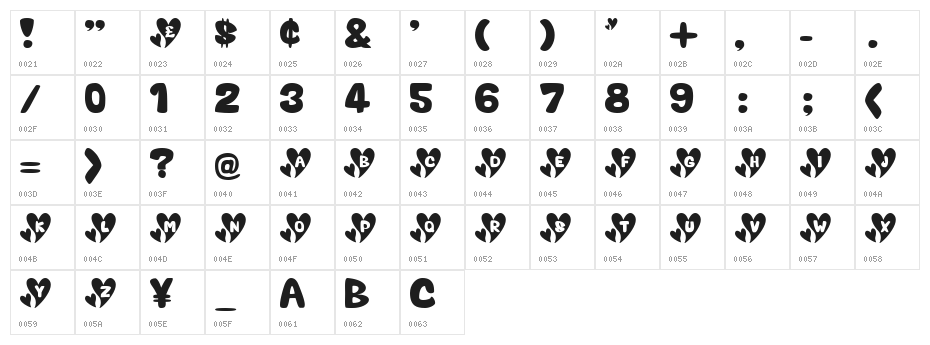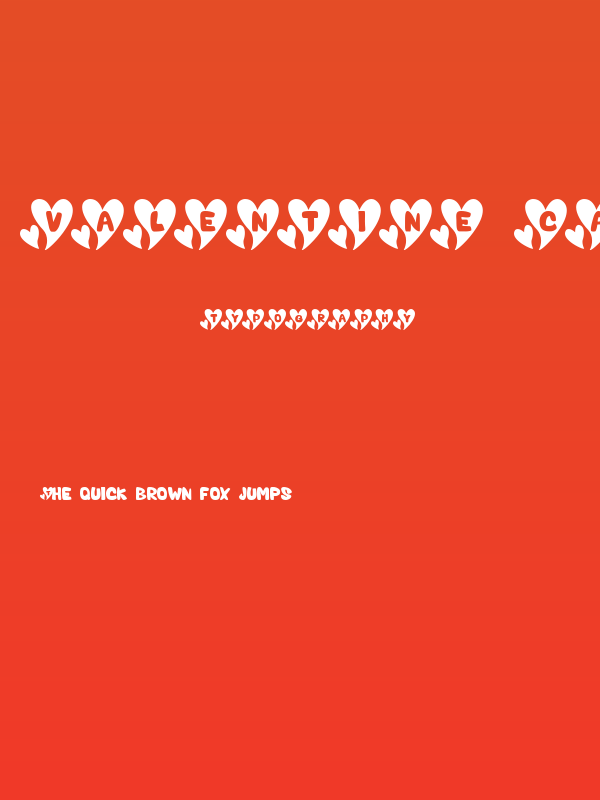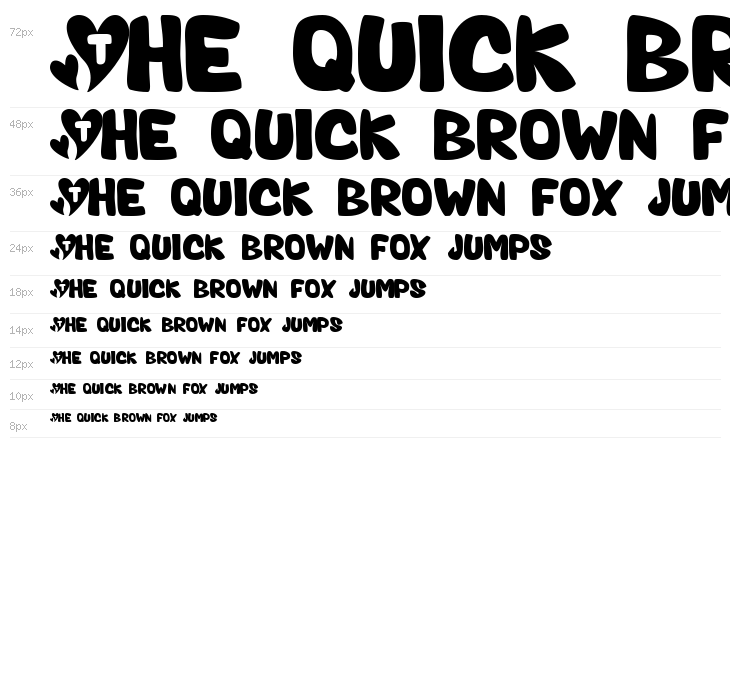
Valentine Caps Font
Valentine Caps Description
This playful and bold font features heart-shaped embellishments integrated into the design of each character, creating a whimsical and romantic aesthetic. The uppercase letters are rounded and thick, providing a strong visual impact, while the lowercase letters maintain a consistent style with a slightly softer appearance. The numbers and special characters follow the same design principles, ensuring uniformity across all elements. The font's unique style makes it ideal for projects that require a touch of fun and creativity, particularly those related to love and celebration themes.
| Overall Style | Playful, Romantic |
| Use Case | Headlines, Logos, Invitations |
| Proposed Projects | Ideal for Valentine's Day cards, wedding invitations, playful branding, and festive posters. |